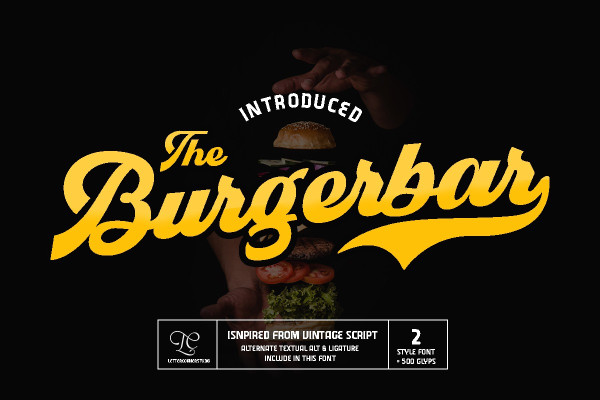
Burgerbar Font
Burgerbar Font, This font is perfect for stickers, retro projects, craft projects, shirts, svg designs, procreate designs, branding, blogs, logos, invitations and more!